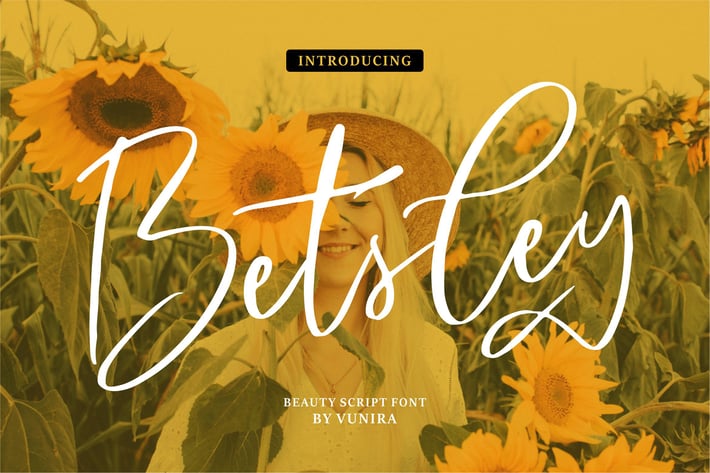
Betsley | Beauty Script Font
Betsley | Beauty Script Font with a calligraphy style, So beautiful on invitation like greeting cards, branding materials, business cards, quotes, posters, and more!